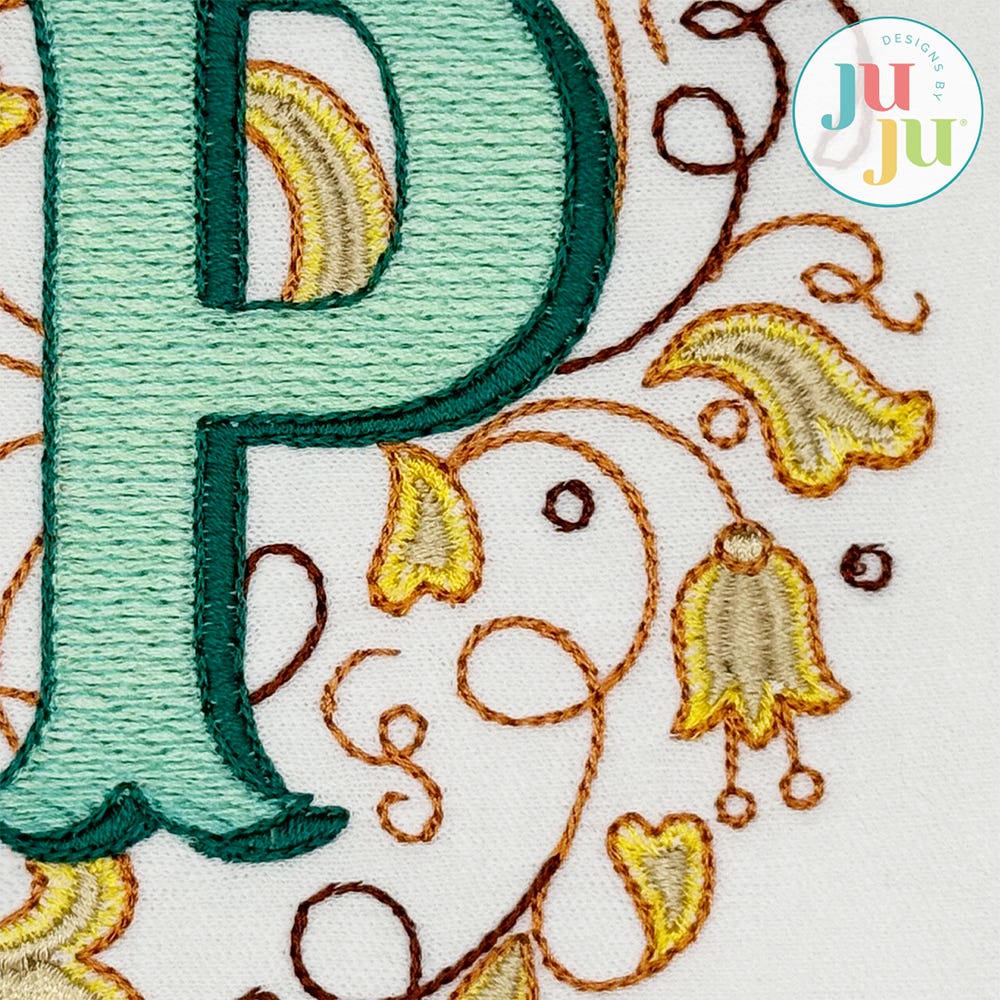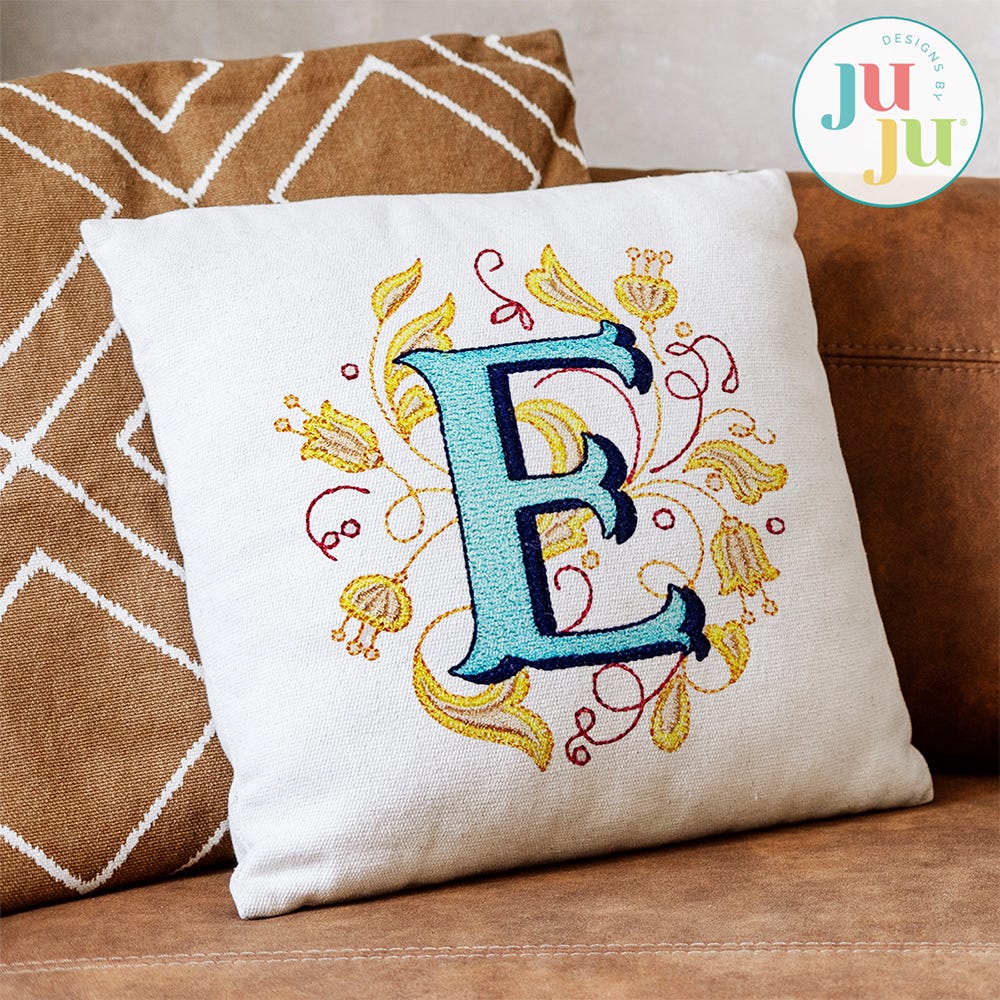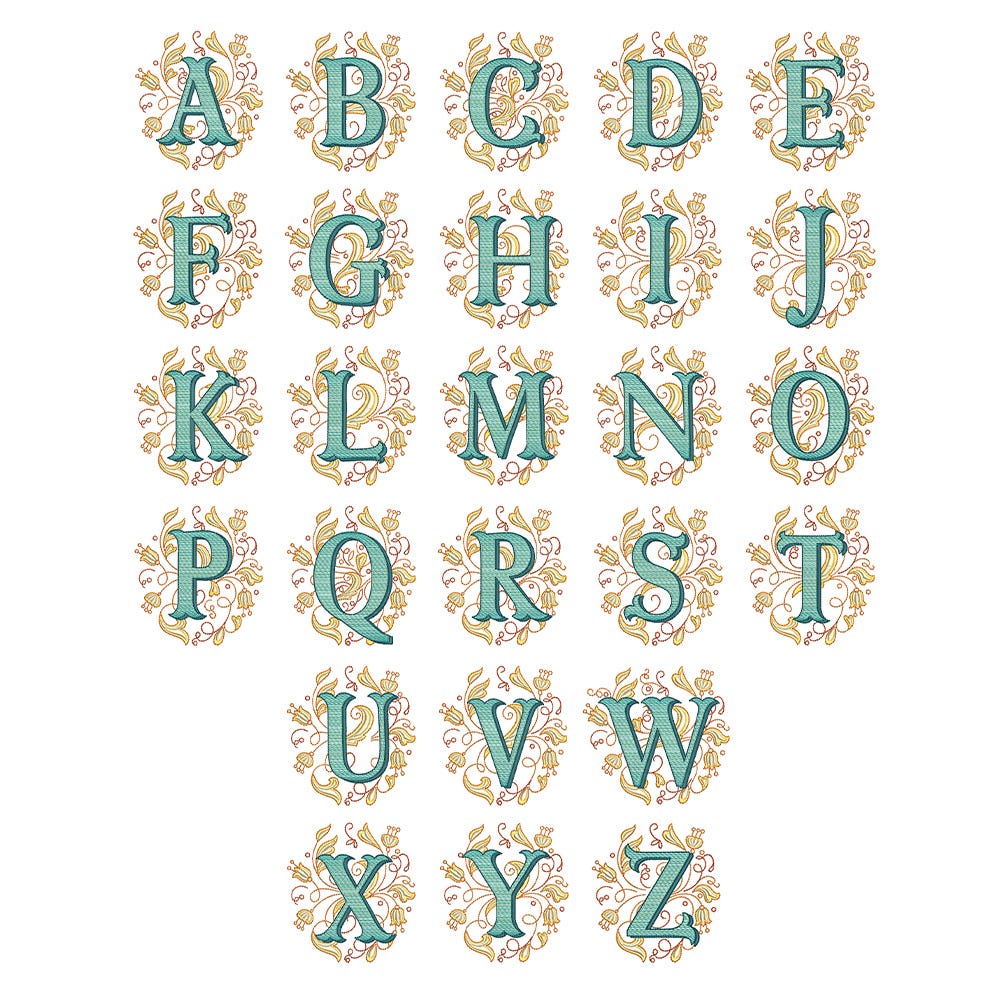
Mabel Sketch Monogram Embroidery Font
Add timeless elegance to your projects with our Mabel Monogram. This embroidery-only monogram features a blend of stitch types to create beautifully layered letters framed by intricate floral and scrollwork accents for a sophisticated look.